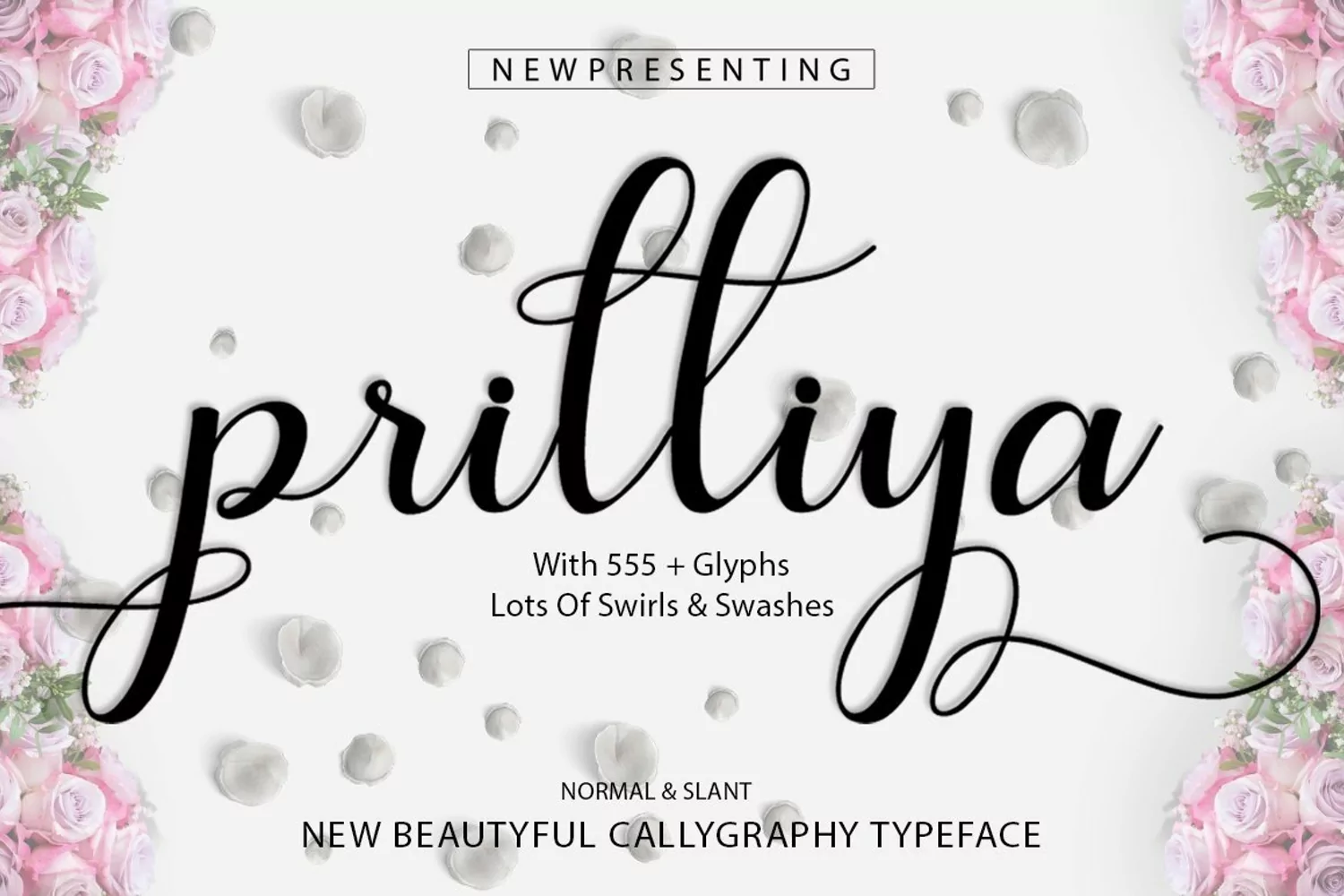
Prilliya the new Script calligraphy hand lettered typography modern calligraphy script, which combines classic font style with a modernstyle calligraphy